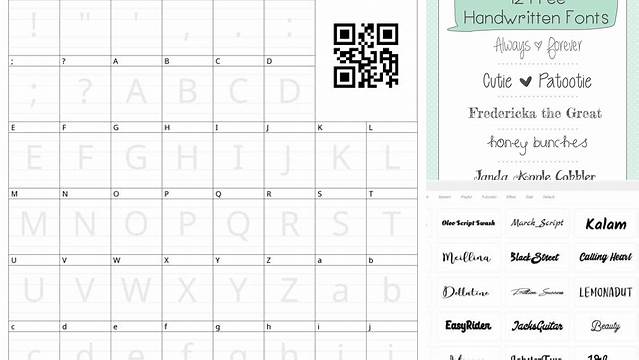
Create Handwriting Font Online Free: Step-by-Step Guide
Hey guys! Ever wondered how to transform your own handwriting into a font you can use on your computer? It's easier than you think, and the best part is, you can do it online for free! This guide will walk you through everything you need to know about creating your own handwriting font online, from the initial steps to the final touches. Let's dive in!
Introduction to Creating Handwriting Fonts Online
Creating your own handwriting font online free is a fantastic way to personalize your digital presence. Whether you're a student, a professional, or just someone who loves to add a personal touch to their work, a custom font can make a huge difference. This introduction will cover the basics of why you might want to create your own font, what tools you'll need, and a brief overview of the process. So, let's get started and explore the world of digital typography, shall we?
Why Create Your Own Handwriting Font?
Why create your own handwriting font online free, you ask? There are tons of reasons! For starters, it's a unique way to express yourself. In a world filled with generic fonts, having your own handwriting font can make your documents, presentations, and designs stand out. Imagine sending an email that looks like it was handwritten, or creating a resume with a font that's uniquely you. Plus, it's a fun and creative project! Creating your own handwriting font online free is also a great way to preserve your handwriting for future generations. Think about it β your grandkids could be using a font based on your actual handwriting! It adds a personal touch to any digital project and makes your work instantly recognizable. The possibilities are endless, guys!
Tools Needed to Create Your Own Font
Before you jump into creating your own handwriting font online free, let's talk tools. The good news is, you don't need a fancy design studio or expensive software. All you really need is a computer, a printer, a scanner (or a smartphone with a good camera), and access to a free online font creation tool. You'll also need some paper and a pen β preferably a pen with a consistent ink flow to ensure your letters are clear and legible. Some people like using special calligraphy pens for a more artistic touch, but a regular ballpoint pen works just fine too. Remember, the key is consistency. You want your handwriting to look as uniform as possible across all the characters. So, gather your supplies and letβs get ready to create something awesome!
Overview of the Font Creation Process
The process of creating your own handwriting font online free generally involves a few key steps. First, you'll need to download a template from the online font creation tool. This template will contain boxes for you to write each letter, number, and symbol. Next, you'll print the template and carefully fill in each box with your handwriting. Try to be as consistent as possible with your letter sizes and spacing. Once you've filled out the template, you'll scan it or take a clear photo of it. Then, you'll upload the scanned image to the online tool. The tool will then convert your handwriting into a digital font, which you can download and install on your computer. Some tools offer customization options, allowing you to adjust the font's spacing, kerning, and other settings. Finally, you'll test your font to make sure it looks good and is easy to read. Sounds like fun, right? Let's get into the details!
Step-by-Step Guide to Making a Handwriting Font
Ready to dive into the nitty-gritty? This step-by-step guide will walk you through each stage of creating your own handwriting font online free, from downloading the template to installing your finished font. We'll cover best practices for writing your letters, how to scan your template, and what to do if you encounter any problems along the way. By the end of this section, you'll be well on your way to having your very own custom font!
Downloading a Font Template
The first step in creating your own handwriting font online free is to download a font template. Many online font creation tools offer templates in various formats, such as PDF or PNG. These templates usually consist of a grid with boxes for each character you need to write β uppercase and lowercase letters, numbers, punctuation marks, and symbols. Some templates also include special characters or accented letters, which can be useful if you write in multiple languages. When choosing a template, make sure it's clear and easy to read. You'll want to have enough space in each box to write your letters comfortably. Download the template that best suits your needs and print it out. It's time to put pen to paper, guys!
Writing Out Your Characters
Now for the fun part: writing out your characters! When creating your own handwriting font online free, itβs important to be consistent. Try to maintain the same size, style, and spacing for each letter. This will ensure your final font looks cohesive and professional. Use a pen that you're comfortable with and that has a consistent ink flow. Fill each box on the template carefully, making sure your letters don't touch the edges. It's a good idea to practice a few times on a separate sheet of paper before filling in the template. If you make a mistake, don't worry β you can always print another template and start again. Remember, patience is key! The more care you put into this step, the better your final font will look. So, take your time and enjoy the process!
Scanning or Photographing Your Template
Once you've filled out your template, it's time to digitize it. This involves scanning or photographing your template. If you have a scanner, that's the best option, as it will give you a high-quality, clear image. Place your template on the scanner bed and scan it at a resolution of at least 300 DPI (dots per inch). This will ensure your letters are crisp and sharp in the digital image. If you don't have a scanner, don't worry β you can use your smartphone camera. Make sure to take the photo in good lighting, and hold your phone directly above the template to avoid distortion. Check the image to make sure it's clear and legible before moving on. A clear image is crucial for the online tool to accurately convert your handwriting into a font. Let's get that image ready for the next step!
Uploading and Converting to Font
With your digitized template in hand (or on your computer!), the next step is uploading it to an online font creation tool and converting it into a font file. Choose a reputable online tool that offers a free handwriting font creation service. There are several options available, so do a little research to find one that suits your needs. Once you've chosen a tool, upload your scanned image or photo. The tool will guide you through the conversion process, which usually involves identifying the individual characters and adjusting their positions. Some tools use automatic character recognition, while others require you to manually assign each letter. Follow the instructions provided by the tool and take your time to ensure each character is correctly identified. Once the conversion is complete, you'll be able to download your font file. Awesome, you're almost there!
Character Spacing and Kerning
Character spacing and kerning are crucial elements in creating your own handwriting font online free. Character spacing refers to the overall space between letters, while kerning refers to the adjustment of space between specific pairs of letters. Proper spacing and kerning ensure your font is easy to read and looks visually appealing. When filling out your template, pay attention to the space between each letter. Try to maintain a consistent amount of space, but also be aware of how letters interact with each other. Some letters, such as